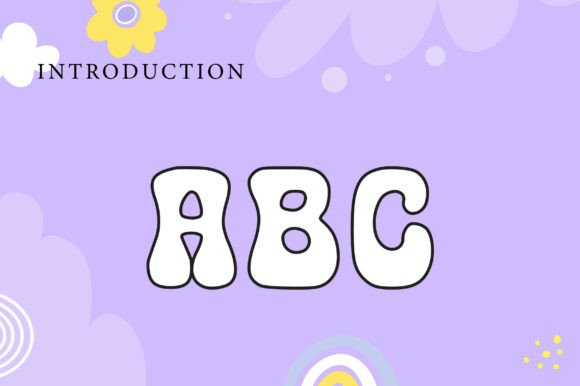
Inject Retro Fun into Your Designs with Bubble Groovy Font
Are you looking for a way to add a massive dose of retro fun to your designs? Look no further than the Bubble Groovy font, a playful display typeface that celebrates the vibrant energy of the 1970s. This charming font is perfect for designers and crafters who want to bring a sense of fun and effortless style to their projects.
The Characteristics of Bubble Groovy Font
The Bubble Groovy typeface features thick, pillowy letterforms with a charming, hand-drawn outline, making it an instant standout for any project that needs a “pop” of personality. The font’s unique design is characterized by its bold, rounded shapes and soft edges, giving it a distinctly retro feel. Whether you’re designing a children’s apparel, sticker designs, or nostalgic social media graphics, the Bubble Groovy font is sure to grab attention and spread positivity and joy.
The Bubble Groovy typeface is designed to be loud and expressive, making it perfect for a variety of design projects. Use it to create eye-catching children’s apparel, such as t-shirts, hoodies, and onesies. It’s also great for sticker designs, social media graphics, and other fun projects that need a playful touch. Additionally, the font’s retro vibe makes it an excellent choice for designing nostalgic graphics, such as vintage-style posters, flyers, and brochures.
Tips for Using Bubble Groovy Font
To get the most out of the Bubble Groovy font, try pairing it with simple floral illustrations or grainy film textures to complete the vintage vibe. You can also experiment with bright, clashing colors to lean into its psychedelic roots, or use soft pastels for a more modern aesthetic look. Here are a few more tips for using the Bubble Groovy font:
- Use it in large sizes to make a bold statement, or in smaller sizes to add a touch of whimsy to your design.
- Experiment with different colors and textures to find the perfect combination for your project.
- Pair it with other playful fonts to create a fun and eclectic look.
- Use it to add a touch of personality to your design, whether you’re creating a logo, flyer, or social media graphic.
Examples of Bubble Groovy Font in Action
The Bubble Groovy font is incredibly versatile, and can be used in a wide range of design projects. Here are a few examples of how you can use it:
- Fun Bakery Logo: Use the Bubble Groovy font to create a playful logo for a bakery or dessert shop. Pair it with colorful illustrations of cupcakes, ice cream, or other sweet treats.
- High-Energy Summer Event Flyer: Create a fun and eye-catching flyer for a summer event, such as a music festival or outdoor concert. Use the Bubble Groovy font to add a touch of energy and excitement to your design.
- Children’s Apparel: Use the Bubble Groovy font to create fun and playful designs for children’s apparel, such as t-shirts, hoodies, and onesies.
Why Choose Bubble Groovy Font?
So why choose the Bubble Groovy font for your design projects? Here are just a few reasons:
- Unique and Playful Design: The Bubble Groovy font features a unique and playful design that’s sure to grab attention.
- Retro Vibe: The font’s retro vibe makes it perfect for designers who want to add a touch of nostalgia to their projects.
- Versatile: The Bubble Groovy font is incredibly versatile, and can be used in a wide range of design projects.
Overall, the Bubble Groovy font is a great choice for designers and crafters who want to add a touch of retro fun to their projects. Its unique and playful design, retro vibe, and versatility make it perfect for a wide range of design projects. So why not give it a try and see how it can add a massive dose of fun to your designs?